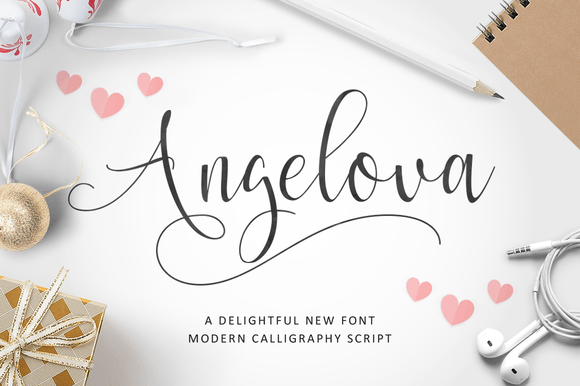
The Angelova Font: A Modern Calligraphy Script to Elevate Your Designs
I’ll never forget the moment I stumbled upon the Angelova font. I was working on a wedding invitation project for a client who wanted something elegant, yet modern. I had spent hours scouring the internet for the perfect font, but nothing seemed quite right. That was until I saw Angelova – a delightful, modern calligraphy script that instantly caught my eye. ✨
As a designer, I’m always on the lookout for versatile fonts that can be used across various projects. And trust me, Angelova delivers. From headings and logos to wedding invitations and t-shirts, this font is perfect for any creative project that requires a touch of sophistication.
Honest Review: What I Love (and a Few Quirks)
The Good Stuff ✅
- ✨ Elegant and modern calligraphy script
- ✅ Highly versatile – perfect for headings, logos, invitations, and more
- 🔥 Beautifully crafted with attention to detail
- 💻 Works seamlessly across various platforms
- 🤔 Limited availability of certain OpenType features in certain software
One of the standout features of Angelova is its OpenType features and glyphs. These allow you to customize your text and add unique touches to your designs. Some of the features you can expect to find include:
- Stylistic alternates for varying letterforms
- Swashes and flourishes for added elegance
- Ligatures for connecting letters
The Story Behind Angelova: Designer Inspiration
While the true story behind Angelova’s creation may be unknown, it’s easy to imagine a designer sitting at their desk, pouring their heart and soul into crafting a beautiful calligraphy script. Perhaps they were inspired by the flowing lines of handwritten calligraphy, or the elegant curves of traditional typography. Whatever the inspiration, the result is a font that’s both modern and timeless.
Q: What type of projects is Angelova best suited for?
A: Angelova is a versatile font that can be used for a wide range of projects, including headings, logos, wedding invitations, t-shirts, and more.
Q: Is Angelova a difficult font to use?
A: Not at all! Angelova is easy to use and works seamlessly across various platforms. With a little practice, you’ll be creating beautiful designs in no time.
Q: Can I use Angelova with other fonts?
A: Absolutely! Angelova pairs well with a variety of fonts. Experiment with different combinations to find the perfect look for your project.